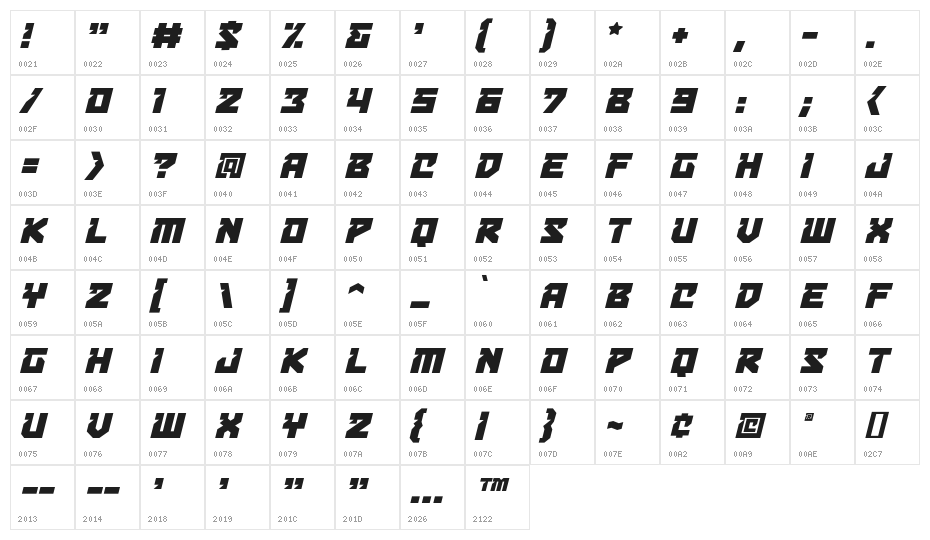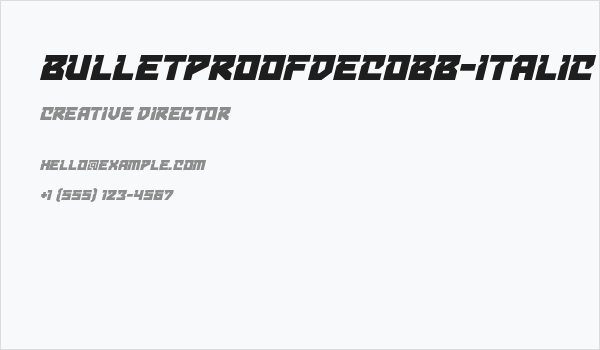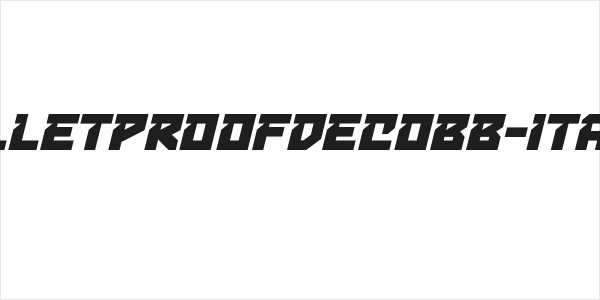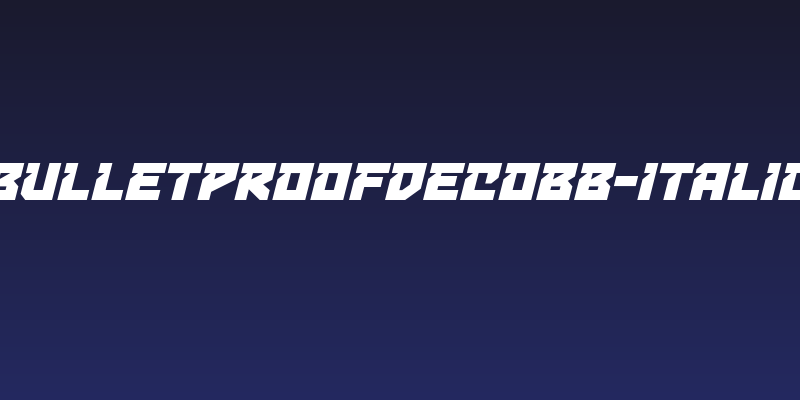
BulletproofDecoBB-Italic Font
BulletproofDecoBB-Italic Description
This font features a bold, angular design with a distinct geometric style. The characters are sharply cut with a futuristic and dynamic appearance, making it stand out with its unique flair. The italic slant adds a sense of motion and energy, enhancing its modern and edgy look. The uppercase letters are particularly striking, with a strong presence that commands attention. The numbers and special characters maintain the same bold and angular aesthetic, ensuring consistency throughout. This font is ideal for projects that require a bold statement and a modern touch.
| Proposed Projects | Ideal for branding, posters, video game graphics, and any project needing a futuristic and bold look. |